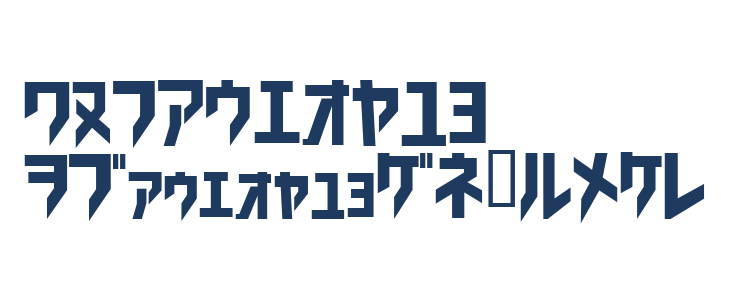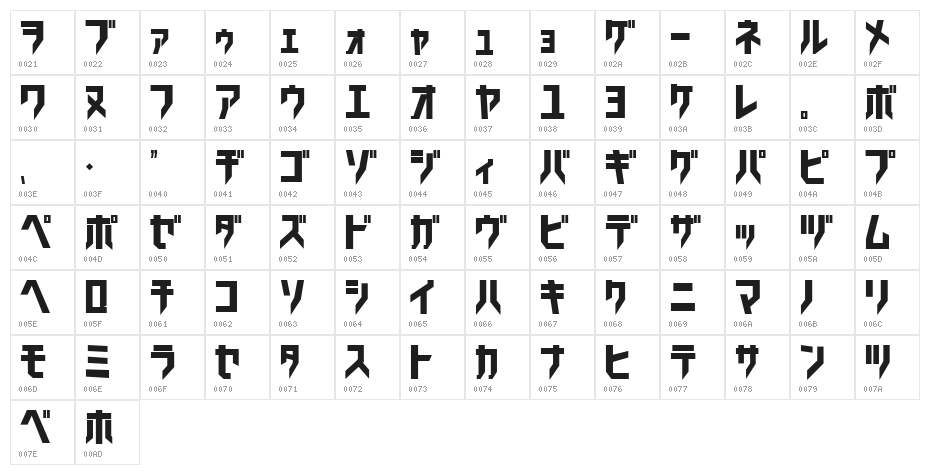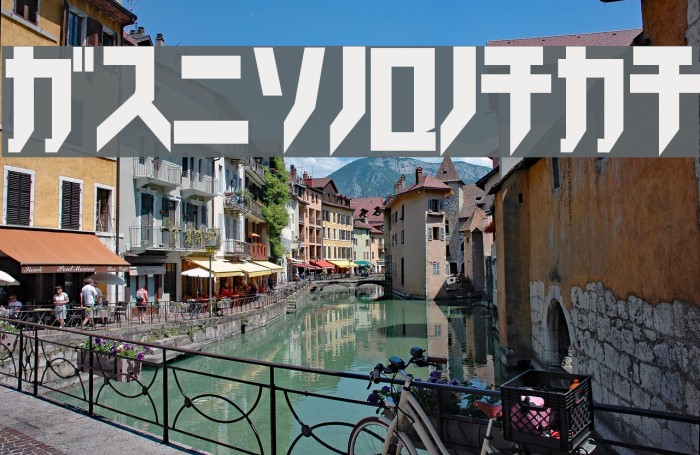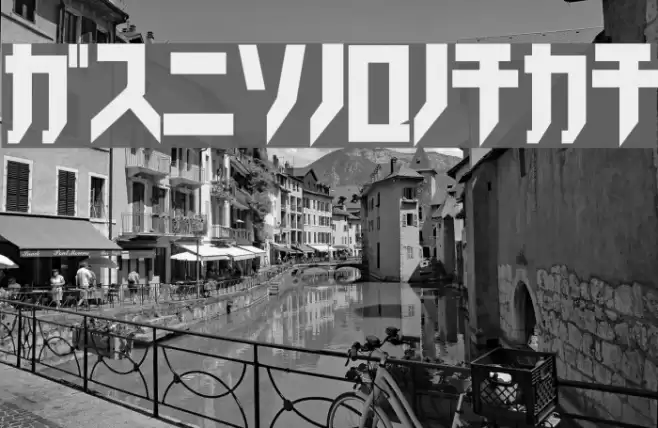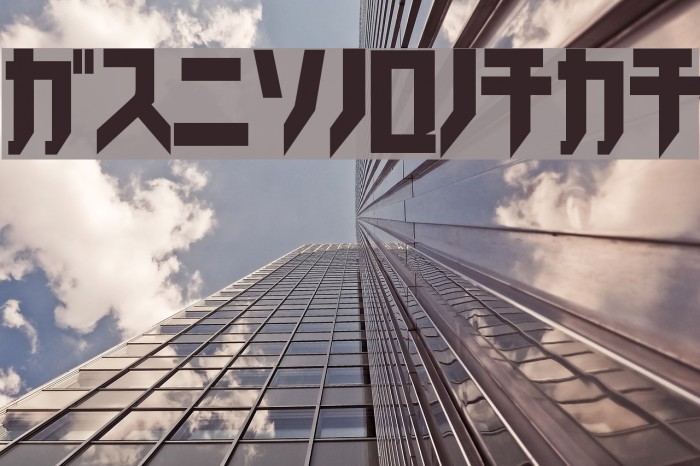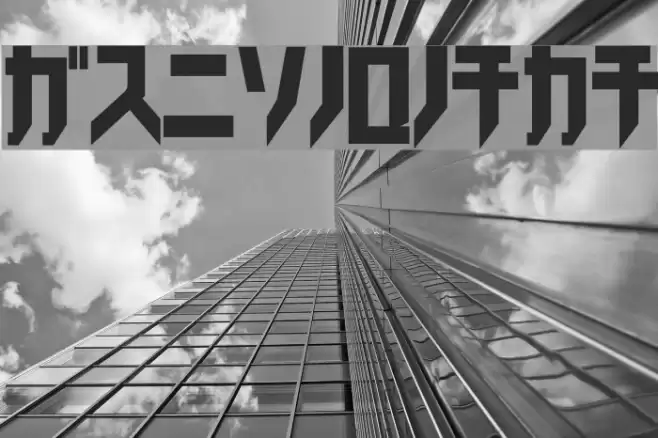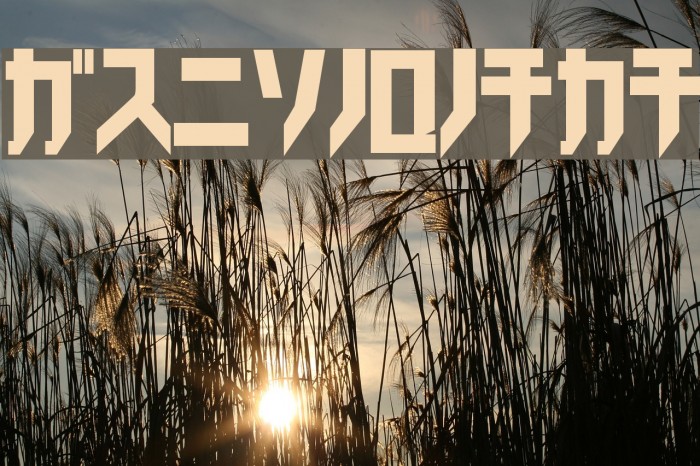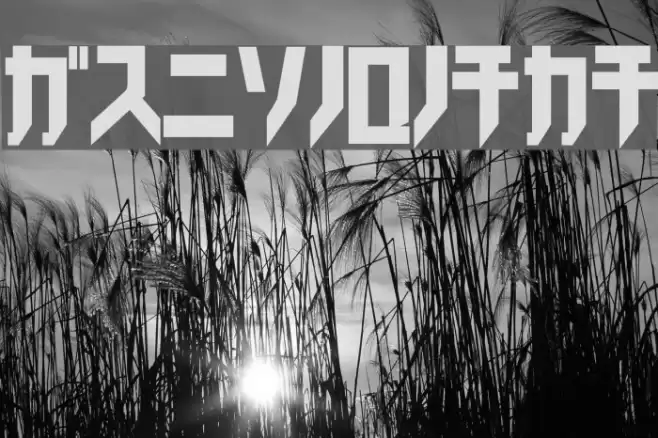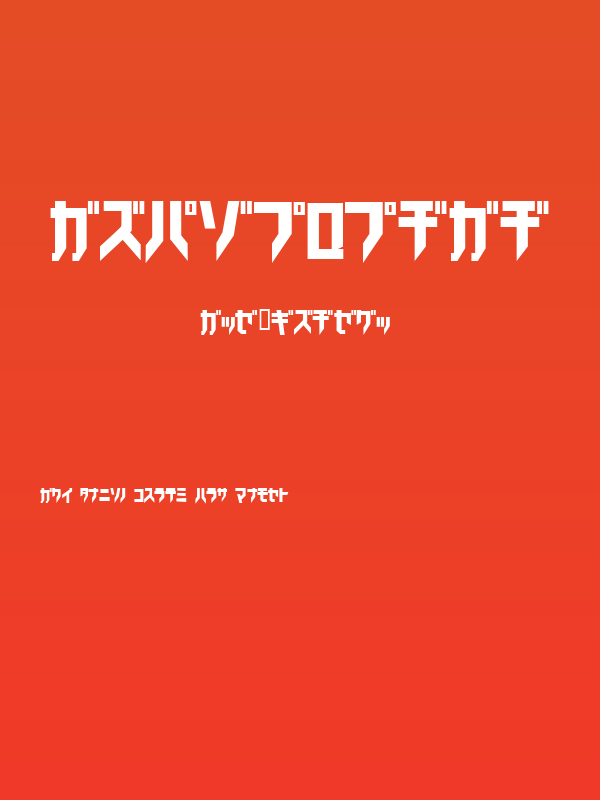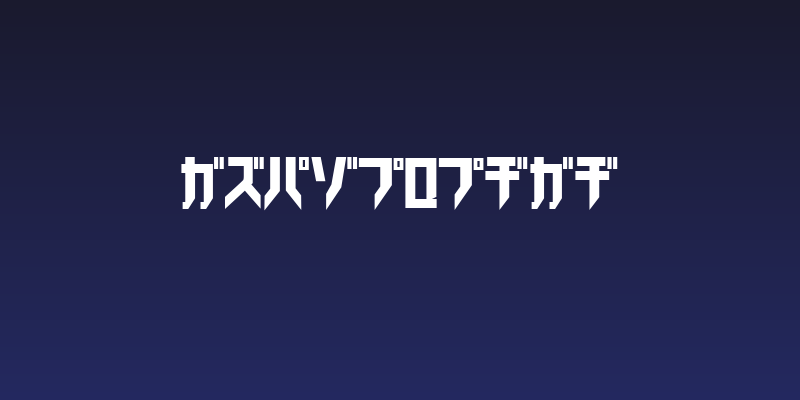
Trick_kata Font
Trick_kata Description
This font features bold, angular characters with a distinctly geometric and modern appearance. The characters are sharply defined, with a consistent stroke width that gives the font a strong, impactful presence. The design is highly stylized, with a futuristic aesthetic that is both eye-catching and unique. The characters are tightly spaced, enhancing the boldness and making it suitable for attention-grabbing headlines or titles. The font's overall style is reminiscent of digital or tech-inspired themes, making it ideal for projects that require a modern and edgy look.
| Proposed Projects | Ideal for tech branding, futuristic posters, video game titles, and digital media. |